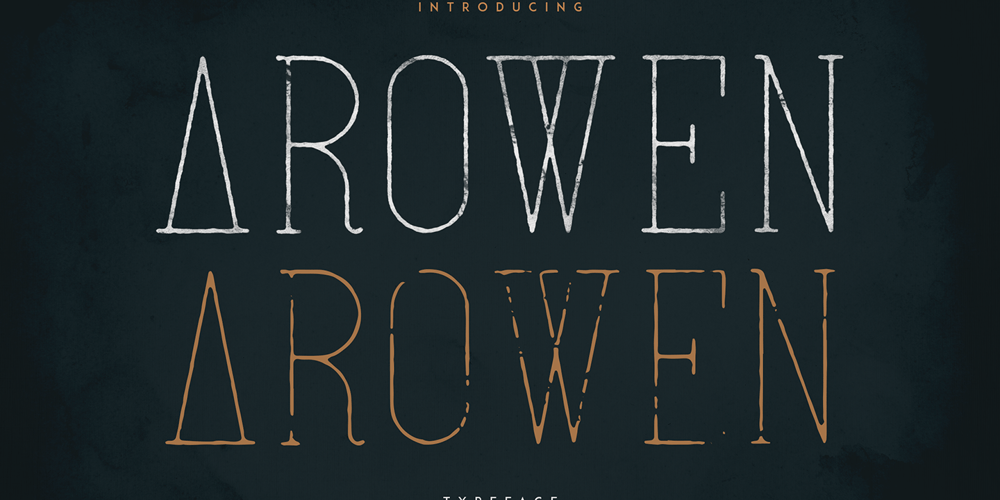
Arowen Font Family was designed by Vladimir Fedotov, Plamen Petrov and published by VP Creative Shop. Arowen contains 2 styles and family package options. Introducing Arowen typefaceArowen is perfect for branding projects, home-ware designs, product packaging, magazine headers – or simply as a stylish text overlay to any background image.–Uppercase